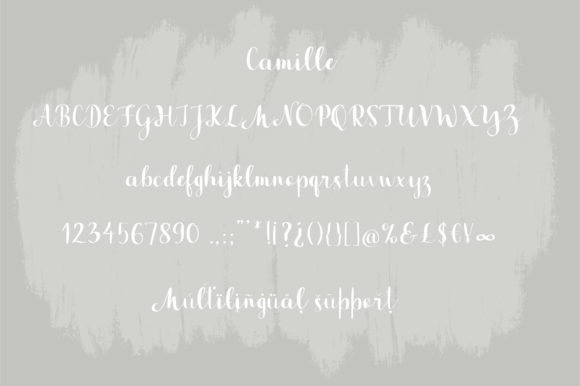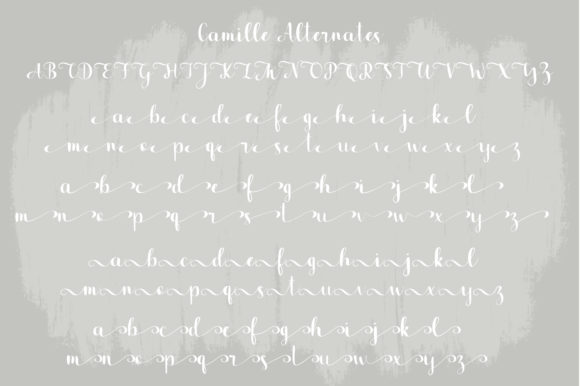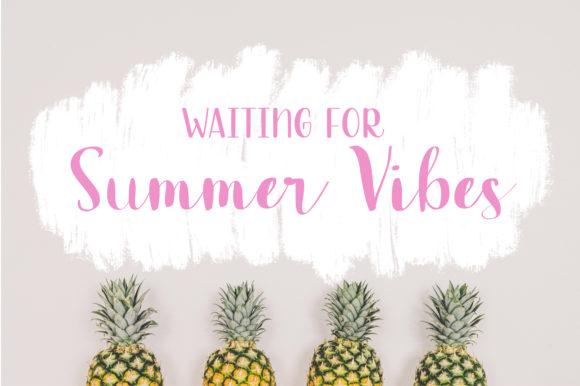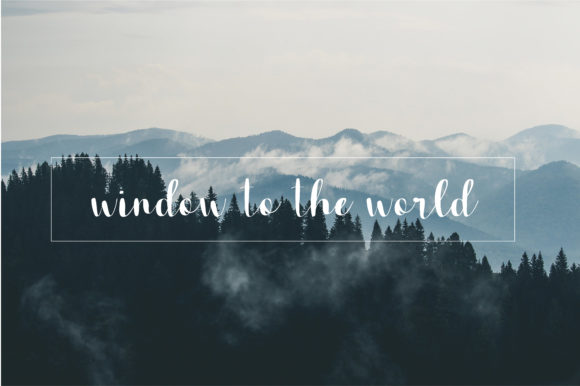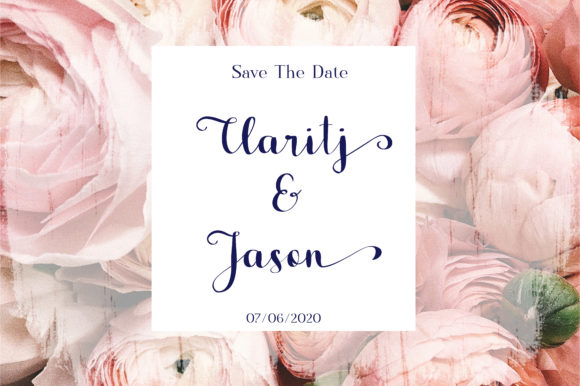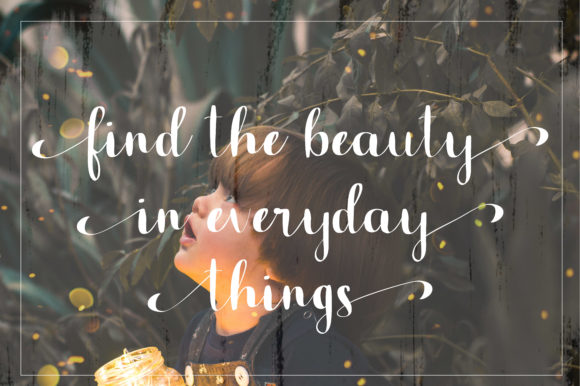
Camille Font: Add a Touch of Whimsy to Your Designs
Are you looking for a font that can add a dash of personality to your designs? Look no further than Camille Font, a cute and simple brush handwritten font that is sure to charm. With its great personality and adorable aesthetic, Camille is the perfect choice for designers and crafters who want to give their projects a unique and playful touch.
What is Camille Font?
Camille Font is a beautiful, hand-brushed font that is designed to evoke a sense of whimsy and playfulness. Its simple, yet elegant design makes it perfect for a wide range of projects, from invitations and greeting cards to blog posts and social media graphics. The font’s charming personality is sure to capture the attention of your audience and leave a lasting impression.
Key Features of Camille Font
• Cute and Simple Design: Camille Font features a cute and simple design that is both elegant and playful.
• Hand-Brushed Texture: The font’s hand-brushed texture gives it a unique, organic feel that is sure to add a touch of personality to your designs.
• Great Personality: Camille Font has a great personality that is sure to shine through in your designs.
• Adorable Aesthetic: The font’s adorable aesthetic makes it perfect for projects that require a playful and whimsical touch.
Why Choose Camille Font?
There are many reasons why Camille Font is a great choice for designers and crafters. Here are just a few:
• Easy to Read: Despite its playful design, Camille Font is easy to read, making it perfect for body text and other applications where legibility is important.
• Versatile: Camille Font is versatile and can be used for a wide range of projects, from formal invitations to casual social media graphics.
• Unique: The font’s unique design ensures that your projects will stand out from the crowd and capture the attention of your audience.
Camille Font is a beautiful, hand-brushed font that is sure to add a touch of whimsy and playfulness to your designs. With its great personality and adorable aesthetic, Camille is the perfect choice for designers and crafters who want to give their projects a unique and playful touch. Whether you’re creating invitations, blog posts, or social media graphics, Camille Font is sure to charm your audience and leave a lasting impression.